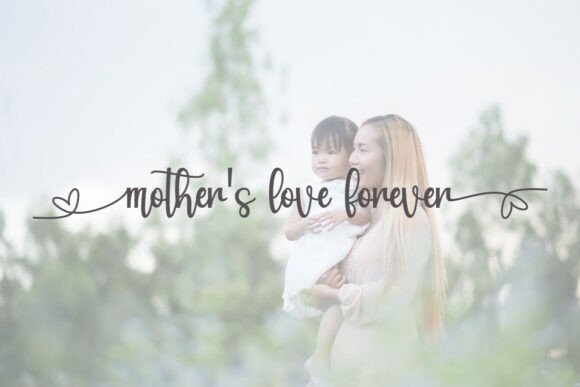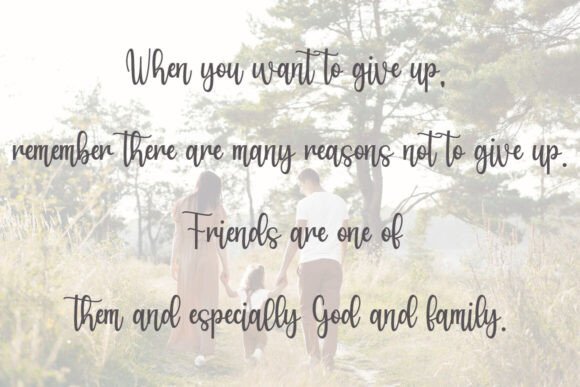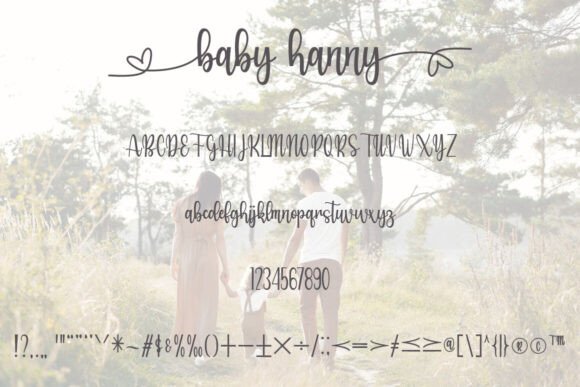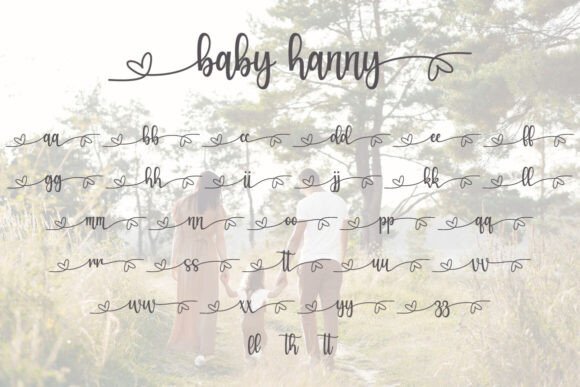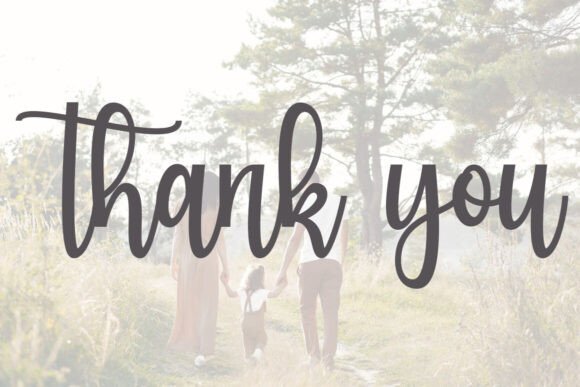
Introduction to Baby Hanny Font
Do you remember that moment when you finally found the perfect font for your creative project? The one that brings your idea to life and makes it stand out from the crowd? For designers, finding the right font can be a game-changer, and that’s exactly what Baby Hanny Font offers.
As a free download, Baby Hanny Font is an enchanting script font that’s perfect for logos, branding, quotes, clothing, tote bags, business cards, websites, and many more. With its high-quality design, it’s no wonder why designers are falling in love with it. The font’s PUA encoding also makes it easy to access all the glyphs and ligatures, giving you the creative freedom you need to take your projects to the next level.
Whether you’re working on a personal or professional project, Baby Hanny Font is a valuable design resource that’s sure to impress. With its transparent background and high-quality design, it’s the perfect addition to any creative endeavor.
Key Features of Baby Hanny Font
- Includes a range of glyphs and characters, making it suitable for various design applications.
- Designed with a unique, playful style that adds a touch of whimsy to any creative project.
Honest Review: Baby Hanny Font
I recently came across the Baby Hanny Font, and I must say it’s a fantastic addition to any design project. This font is perfect for creating a whimsical and playful atmosphere, making it ideal for a children’s book or a creative project targeting a young audience.
What works well: ✨ The font’s simplicity and charm make it easy to read and understand, even for those with limited design experience. The high-quality design and transparent background make it a great resource for any designer. Additionally, it’s available for a free download, which is a definite plus!
Here are some key features:
- Simple and charming design
- High-quality and transparent background
- Perfect for children’s projects or creative designs
Limitations: ⚠️ While the font is great for its intended purpose, it may not be suitable for more formal or professional designs. Additionally, some users may find the font’s simplicity too simplistic for their taste.
Overall, I’m thoroughly impressed with the Baby Hanny Font. Its charm and simplicity make it a great addition to any design project, and its free download availability makes it a must-have for designers of all levels.
The Baby Hanny Font is commonly used in creative projects, such as:
- Birthday invitations and party decorations
- Social media posts and graphics
- Wedding invitations and decorations
- Brochures and marketing materials